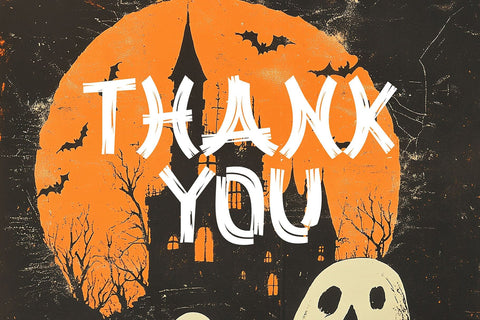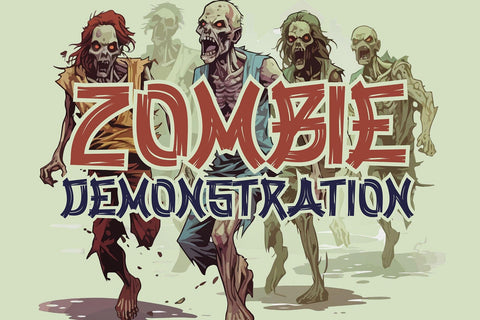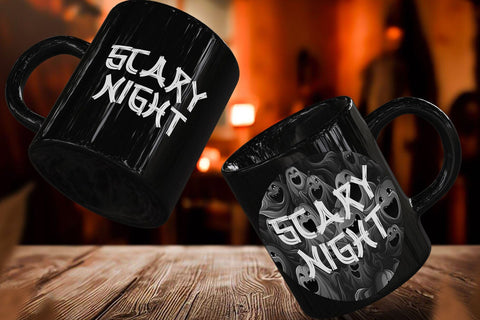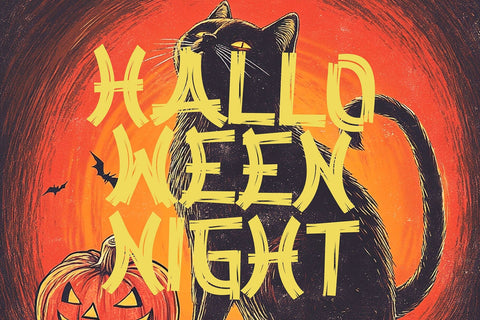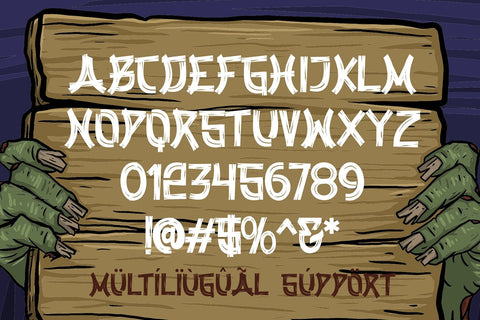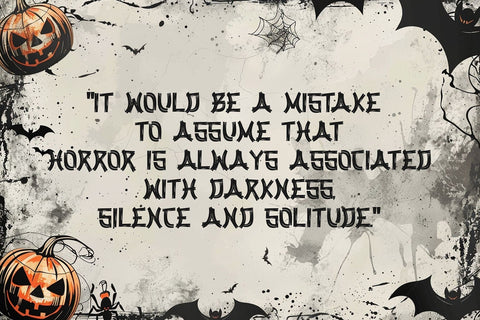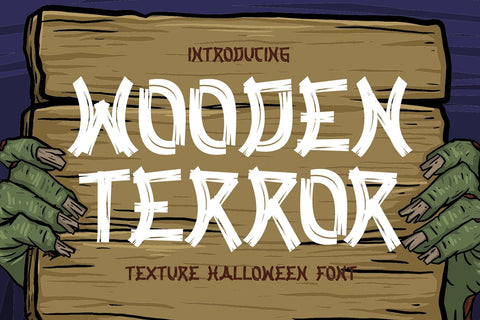
Wooden Terror - Halloween Textured Display Font
Wooden Terror is a spooky Halloween-themed display font featuring a unique textured, wood-like effect. Its eerie and unsettling design is perfect for creating a chilling atmosphere in Halloween posters, invitations, horror-themed branding, or any project that needs a dark and haunting vibe. The distressed texture adds an extra layer of creepiness, making it ideal for spooky designs that need to stand out.
- Wood Textured Characters